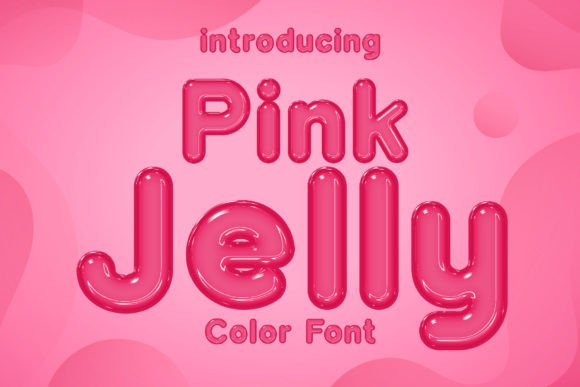
Looking for the best fonts for resume design? Look no further than Pink Jelly Font! Created by Fox7, this colorful font is perfect for adding a touch of fun and authenticity to any project.
With its cute, bright, and playful style, Pink Jelly Font is perfect for creating gorgeous invitations, beautiful stationary art, eye-catching social media posts, and cute greeting cards. Whether you're a designer, artist, or just looking for a font to spice up your projects, Pink Jelly Font is the perfect choice.
One of the best things about Pink Jelly Font is its versatility. With the ability to change the font color in Photoshop or Illustrator, you can create stunning designs that stand out from the crowd. Simply rasterize the font and adjust the colors to your liking, and watch as your projects come to life.
But Pink Jelly Font isn't just about functionality – it's also about emotion. This font will make you feel happy, inspired, and creative. Its authentic feel will draw you in, and its bright and fun style will keep you engaged. You'll fall in love with Pink Jelly Font, and so will your clients and customers.